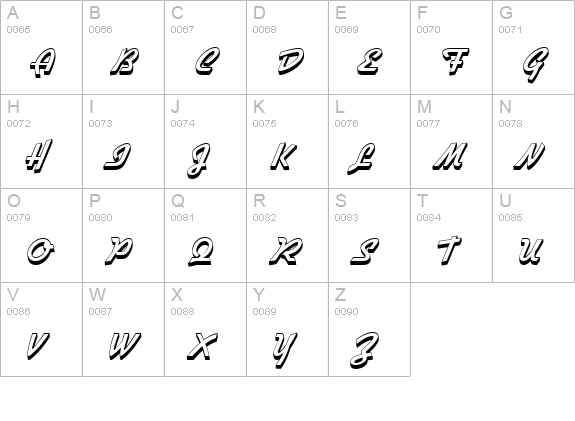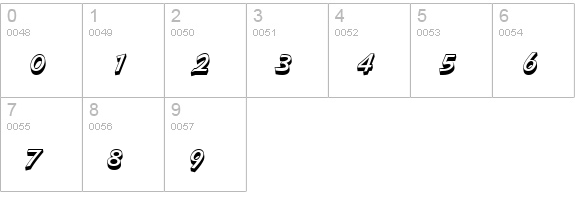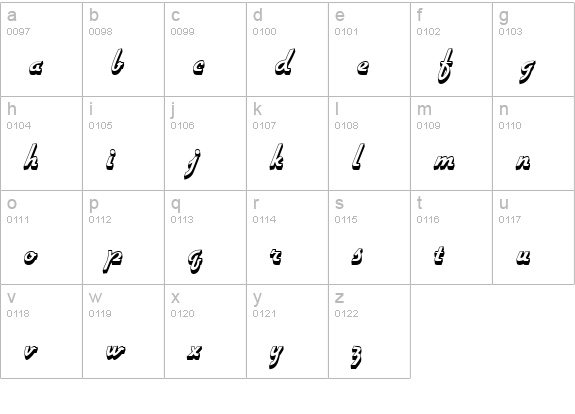
GilliesGotShaD Font Details
GilliesGotShaD font is a stunning display typeface that exudes elegance and sophistication. With its unique and intricate design, this font is perfect for creating eye-catching headlines, logos, and branding materials. The intricate details and stylish curves of GilliesGotShaD make it stand out from the crowd and add a touch of class to any design project. Best of all, GilliesGotShaD font is available for free download at FontsMarket.com. This means you can easily access this gorgeous font and use it in your projects without any cost. Whether you're a designer, a business owner, or a creative professional, GilliesGotShaD font is a must-have addition to your font collection. Download it today and elevate your designs with this exquisite typeface.